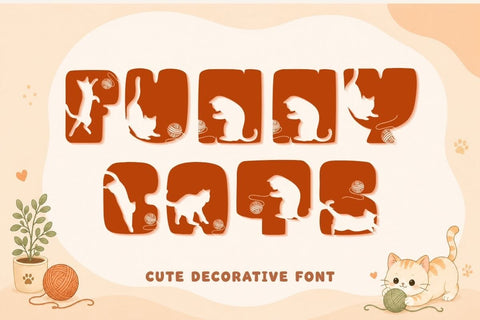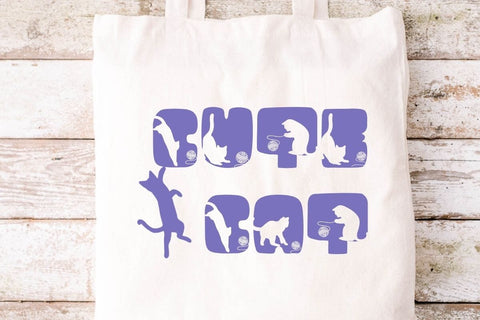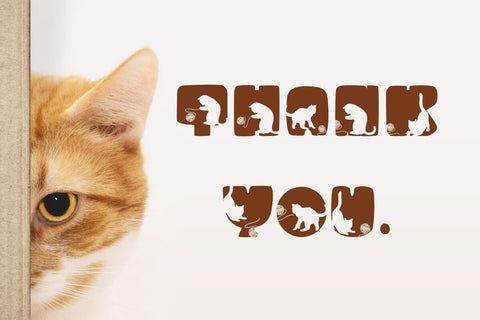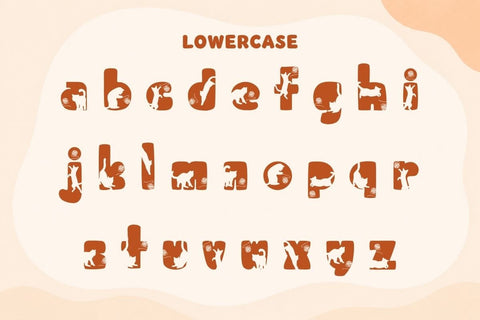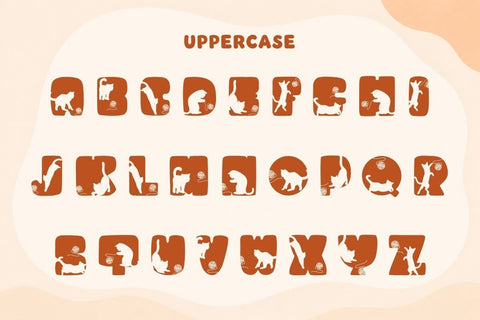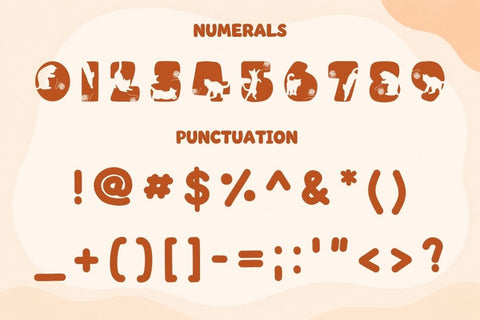
Funny Cats - Cute Decorative Font
Funny Cats is a fun decorative font featuring adorable cat silhouettes inside every letter. Inspired by playful kittens and balls of yarn, this unique display font is designed to make your projects stand out with a cute and cozy personality.
Perfect for Cricut crafts, cat-themed gifts, pet business products, t-shirts, mugs, tote bags, stickers, greeting cards, nursery decor, printable designs, and handmade projects.